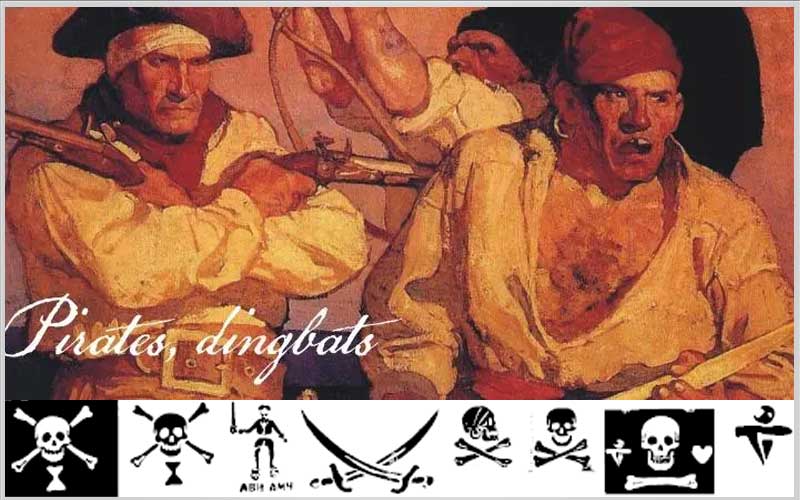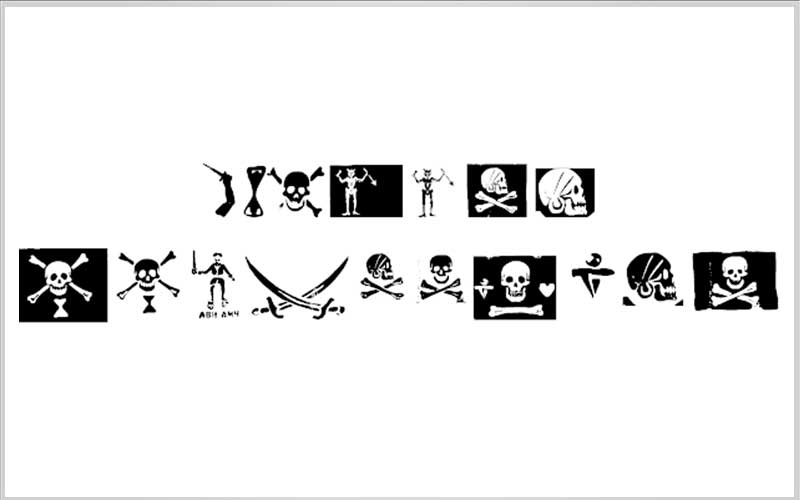
Pirates pw is a high quality Disney font that is designed by Intellecta Design and is available for free download and personal use. The free version provides all uppercase and lowercase letters and a few special characters too.
Pirates Pw Font: